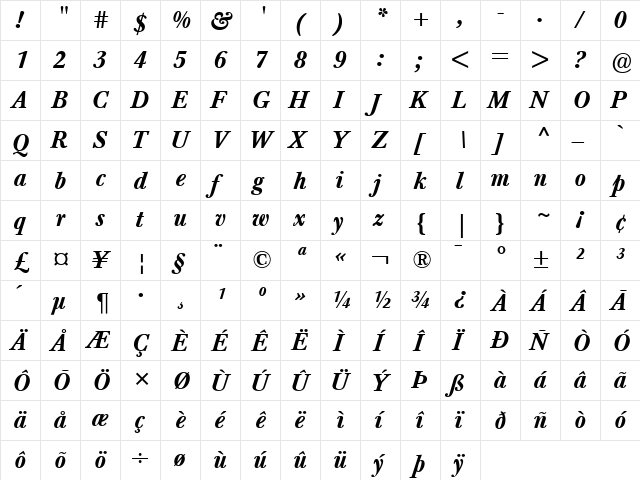
Berthold Baskerville ItalicBold
Design Context for Berthold Baskerville Typeface
Berthold Baskerville is a composed and adaptable typeface that performs quietly and consistently across a wide range of design contexts. The dynamic lean of this cut emphasises speed and emphasis in any layout. Its bold stroke weight gives it real presence on the page.
Pro Tip: Use Berthold Baskerville for emphasis, pull quotes, and subheadings where its slanted energy can add rhythm to the layout.